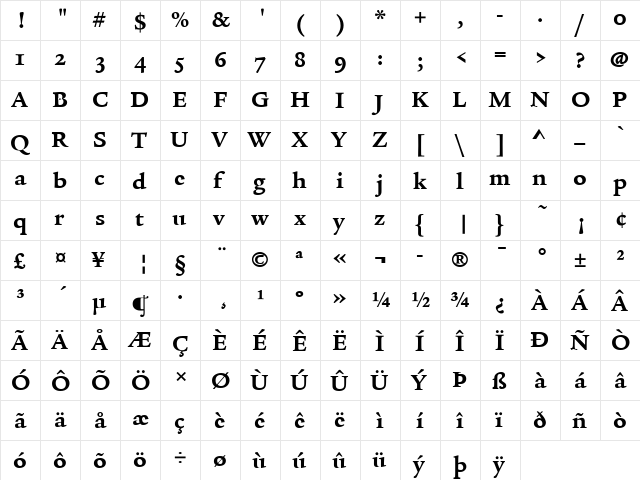
Legacy Serif ITC Bold Font Preview
Legacy Serif ITC Bold
Legacy Serif ITC Bold Font Details
Design Context for Legacy Serif ITC Typeface
Legacy Serif ITC carries the refined structure of traditional serif typography, with bracketed terminals and considered proportions that communicate credibility and craft. Its bold stroke weight gives it real presence on the page.